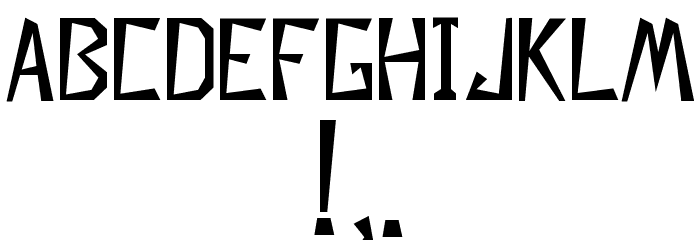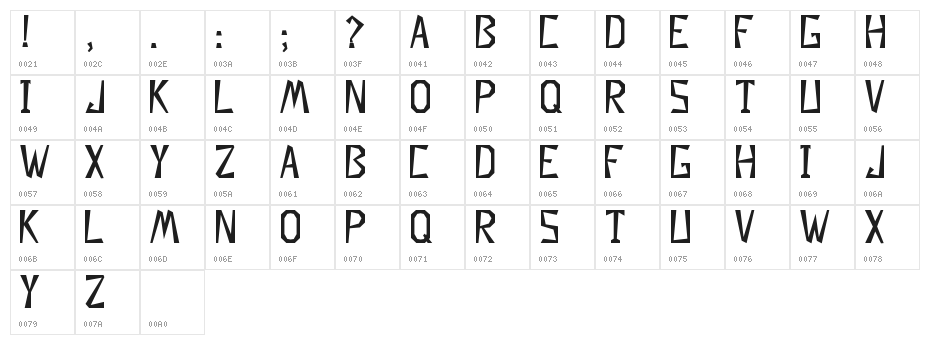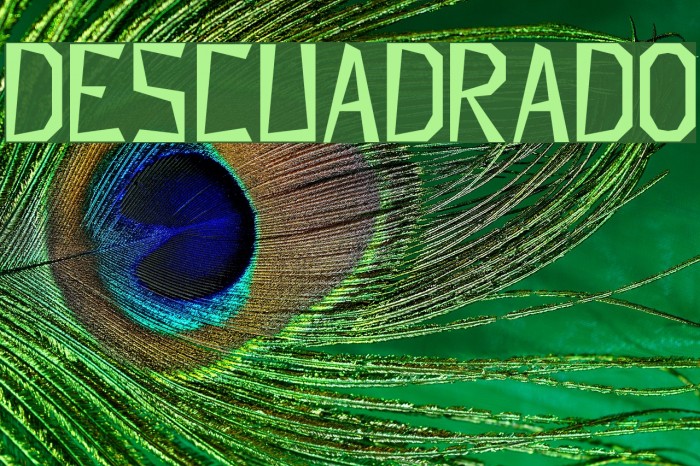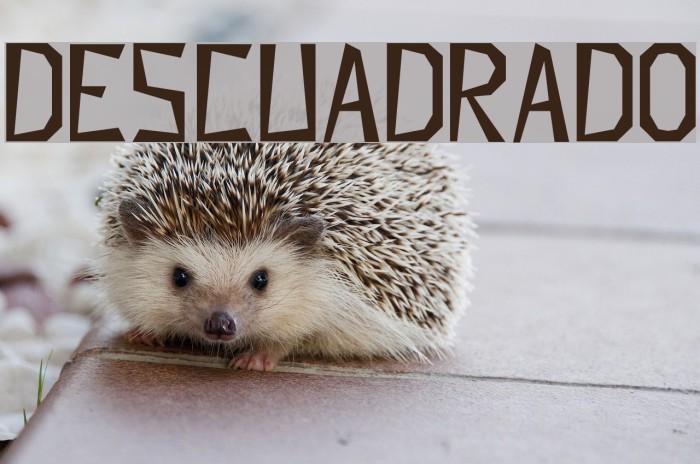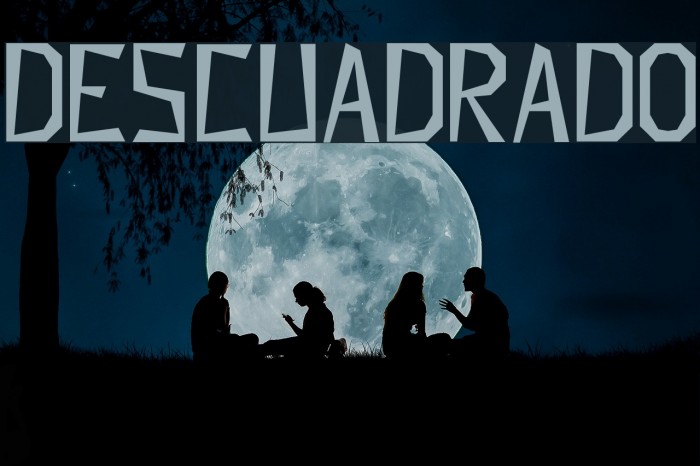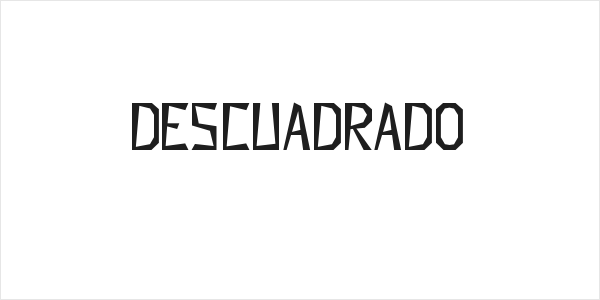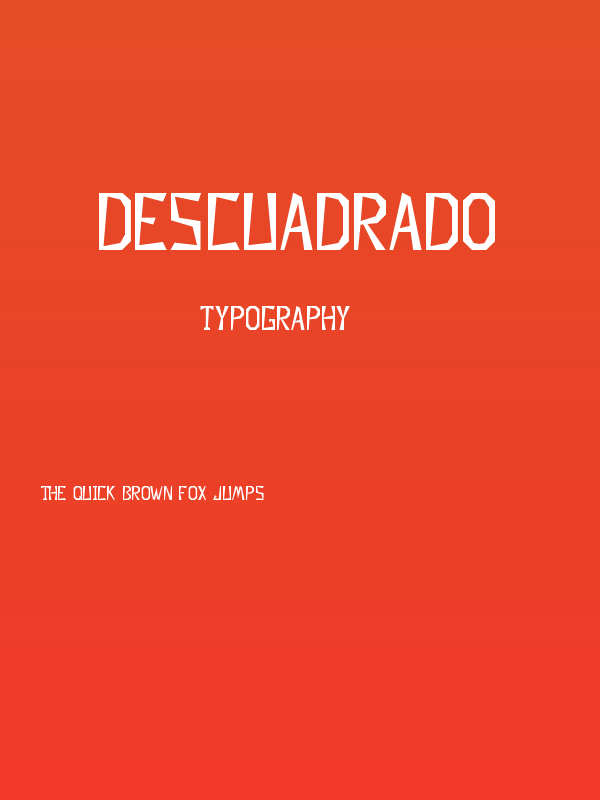
Descuadrado Font
Descuadrado Description
This font features a bold, angular design with a geometric flair. Each character is crafted with sharp edges and a slightly irregular form, giving it a dynamic and edgy appearance. The uppercase letters are particularly striking, with a strong presence that commands attention. The font maintains a consistent weight throughout, ensuring readability while still offering a unique style. The characters are tightly spaced, enhancing the compact and cohesive look of the text. This font is ideal for projects that require a modern and unconventional aesthetic, making it suitable for creative branding, posters, and headlines.
| Proposed Projects | Ideal for creative branding, posters, and headlines. |